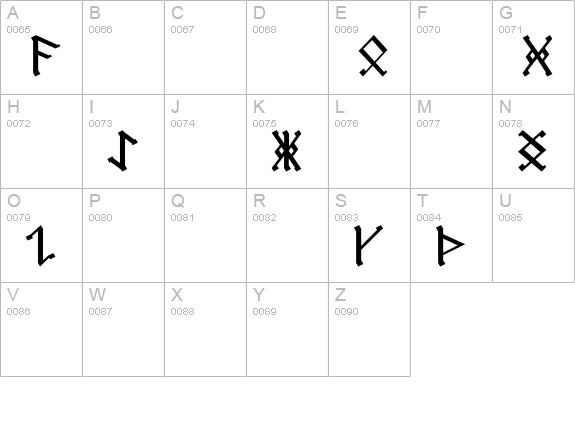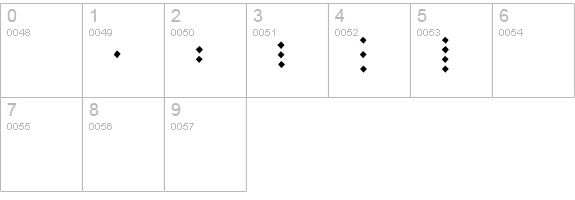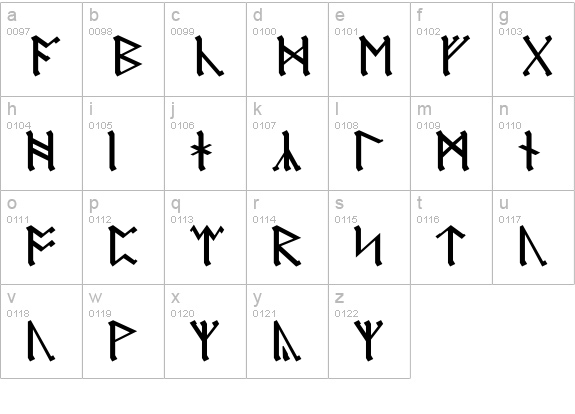
AngloSaxon Runes Font Details
The AngloSaxon Runes font is a striking typeface that harks back to the ancient alphabets used by the early Germanic peoples. Each character is elegantly crafted to evoke the mystique and heritage of the runic writing system. This unique font is perfect for adding a touch of historical flair to your designs, whether you're working on a project related to mythology, history, or fantasy. Best of all, the AngloSaxon Runes font is available for free download at FontsMarket.com. Enjoy the timeless beauty and symbolic power of these ancient runes in your creative endeavors without any cost. Embrace the essence of ancient writing with the AngloSaxon Runes font and bring a touch of history to your work today.